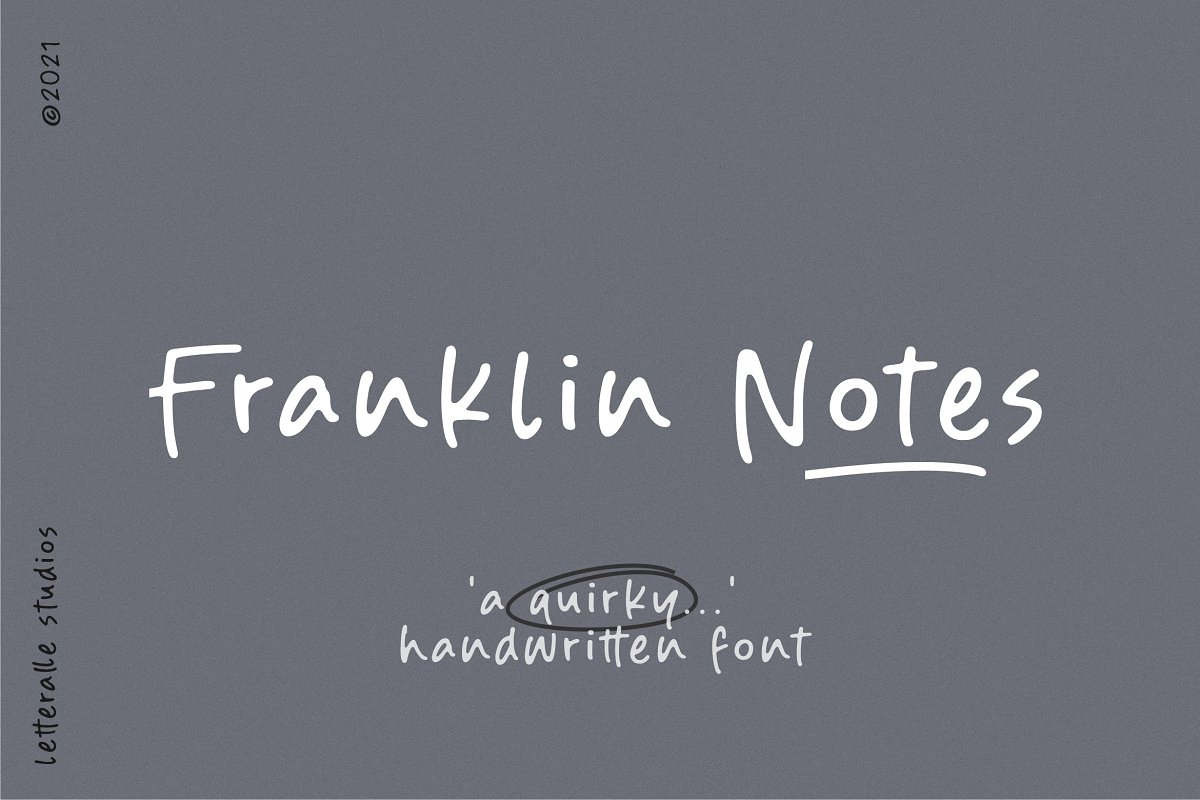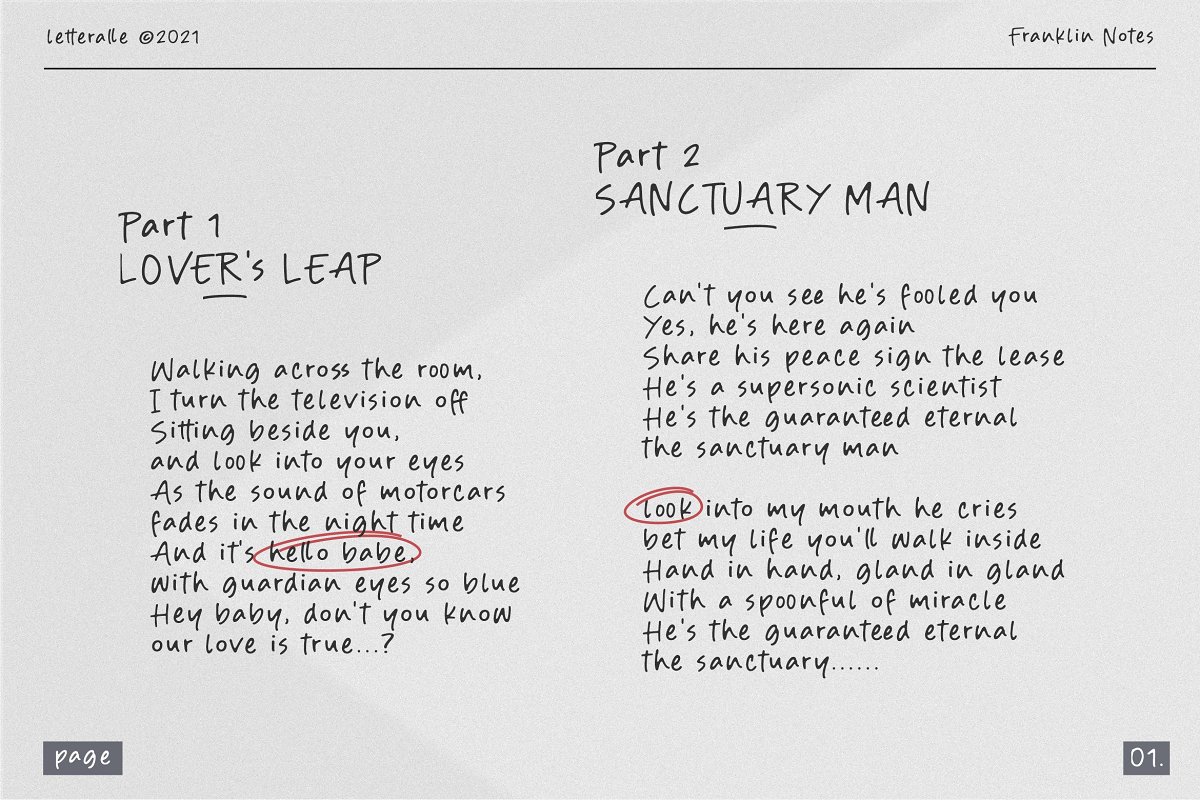
About the Franklin Notes Handwritten Font
Introducing Franklin Notes Font!Franklin Notes is a quirky handwritten font display, This font is suitable for handwriting logos, T-shirts, merchandise, quotes, social media posts, advertising, and a lot more!Franklin Notes comes with an accent language and ligatures, This purchase includes a TTF, OTF, & WOFF font file, Thank You!